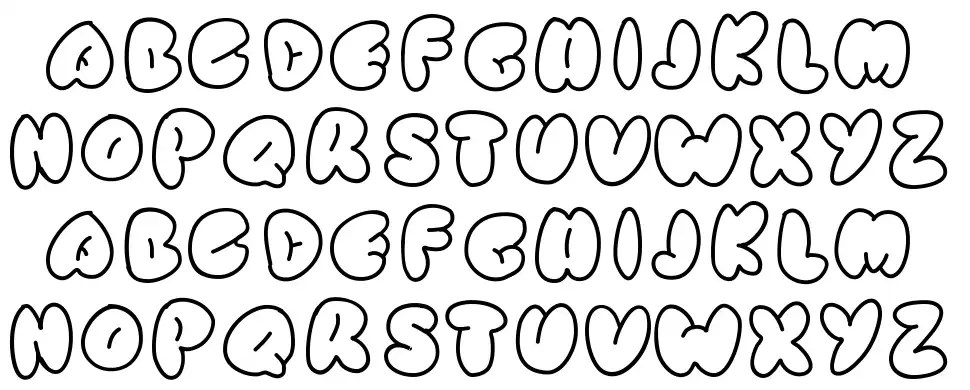
Rounded Font Styles . They’re also great for creating. Explore rounded fonts at myfonts. Discover a world of captivating typography for your creative projects. A bold rounded font can add personality to modern, minimalist designs, while softer ones complement whimsical styles well, ensuring a unified look. Round fonts have letters with softer edges or borders. Add a creative touch to your designs with free, rounded fonts! Discover the best rounded fonts in our extensive collection. Download 300 rounded fonts for windows and mac. Experience designing on a whole other level with our wonderful collection of free and premium. Unleash your design potential today! Perfect for logos, titles, and headers, these fonts add a touch of. Download rounded fonts for free and enhance your typography.
Discover the best rounded fonts in our extensive collection. Unleash your design potential today! A bold rounded font can add personality to modern, minimalist designs, while softer ones complement whimsical styles well, ensuring a unified look. Download rounded fonts for free and enhance your typography. Perfect for logos, titles, and headers, these fonts add a touch of. Round fonts have letters with softer edges or borders. They’re also great for creating. Explore rounded fonts at myfonts. Download 300 rounded fonts for windows and mac. Add a creative touch to your designs with free, rounded fonts!
Rounded Font Styles Explore rounded fonts at myfonts. Perfect for logos, titles, and headers, these fonts add a touch of. Download 300 rounded fonts for windows and mac. Add a creative touch to your designs with free, rounded fonts! Discover the best rounded fonts in our extensive collection. A bold rounded font can add personality to modern, minimalist designs, while softer ones complement whimsical styles well, ensuring a unified look. Explore rounded fonts at myfonts. Round fonts have letters with softer edges or borders. Discover a world of captivating typography for your creative projects. Experience designing on a whole other level with our wonderful collection of free and premium. Unleash your design potential today! Download rounded fonts for free and enhance your typography. They’re also great for creating.
Top 16 Clean Rounded Fonts for Designers FilterGrade Rounded Font Styles Download 300 rounded fonts for windows and mac. Unleash your design potential today! Explore rounded fonts at myfonts. Add a creative touch to your designs with free, rounded fonts! A bold rounded font can add personality to modern, minimalist designs, while softer ones complement whimsical styles well, ensuring a unified look. Round fonts have letters with softer edges or borders.. Rounded Font Styles.
30 Rounded Fonts that Add Modern Simplicity Creative Market Blog Rounded Font Styles Download rounded fonts for free and enhance your typography. Round fonts have letters with softer edges or borders. They’re also great for creating. Perfect for logos, titles, and headers, these fonts add a touch of. A bold rounded font can add personality to modern, minimalist designs, while softer ones complement whimsical styles well, ensuring a unified look. Explore rounded fonts. Rounded Font Styles.
50 Rounded Fonts that Add Modern Minimalist Touch Creativetacos Rounded Font Styles They’re also great for creating. Explore rounded fonts at myfonts. Experience designing on a whole other level with our wonderful collection of free and premium. Discover a world of captivating typography for your creative projects. Round fonts have letters with softer edges or borders. Unleash your design potential today! Download rounded fonts for free and enhance your typography. Add a. Rounded Font Styles.